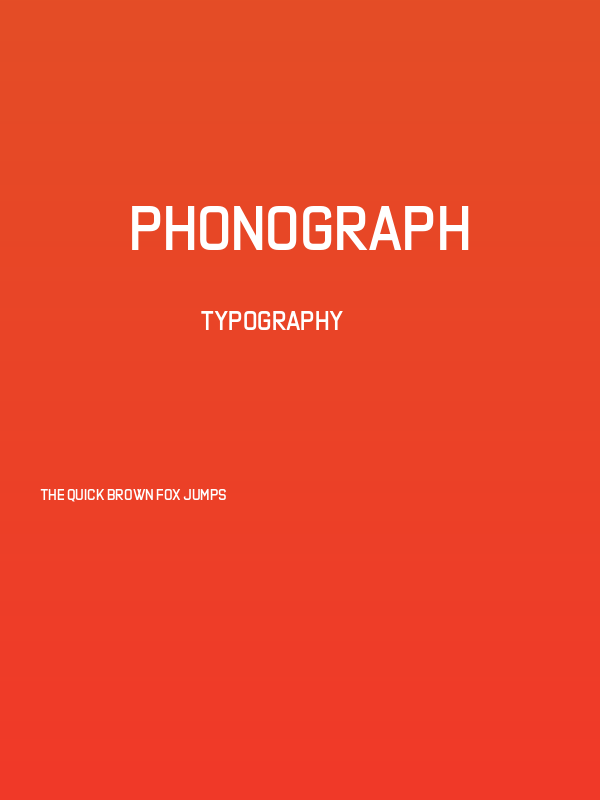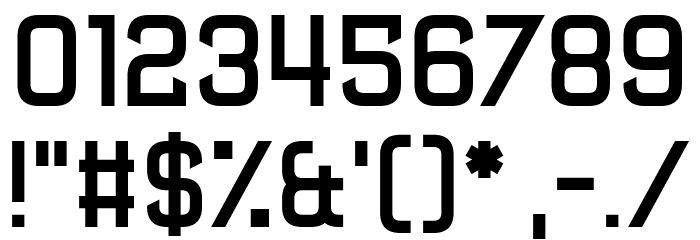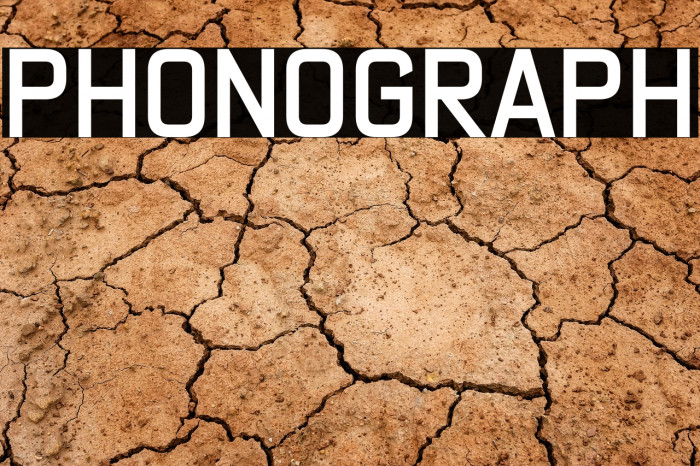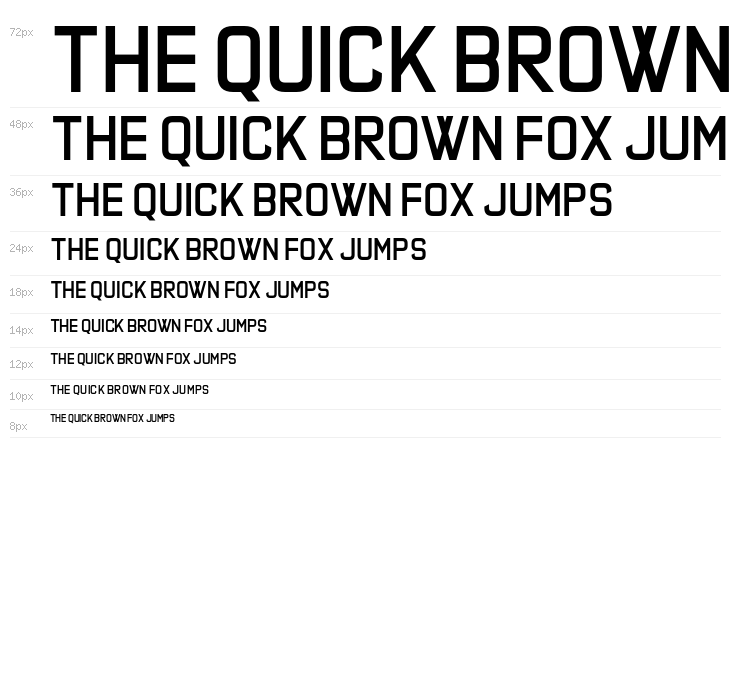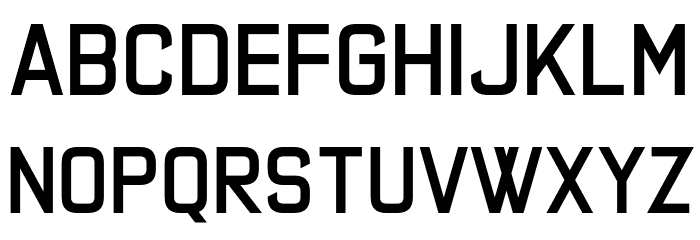
Phonograph Font
Phonograph Description
This font features a bold, geometric sans-serif style with clean, straight lines and a modern aesthetic. The characters are uniform in width, providing a balanced and structured appearance. The uppercase letters are particularly striking, with a strong presence that makes them ideal for headlines and titles. The numerals and special characters maintain the same geometric consistency, ensuring a cohesive look across all text elements. The font's simplicity and clarity make it versatile for various design applications, from digital interfaces to print media.